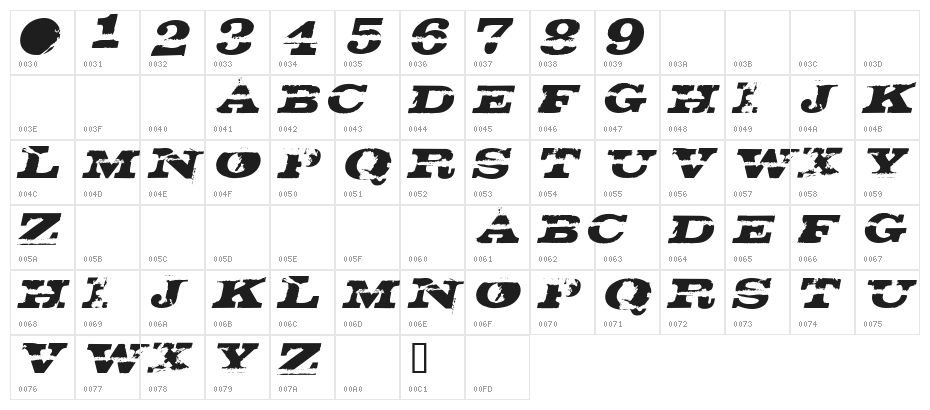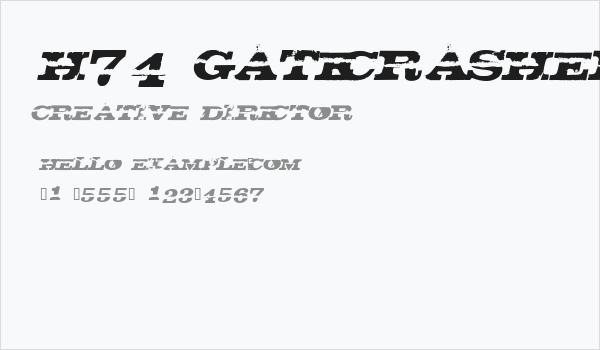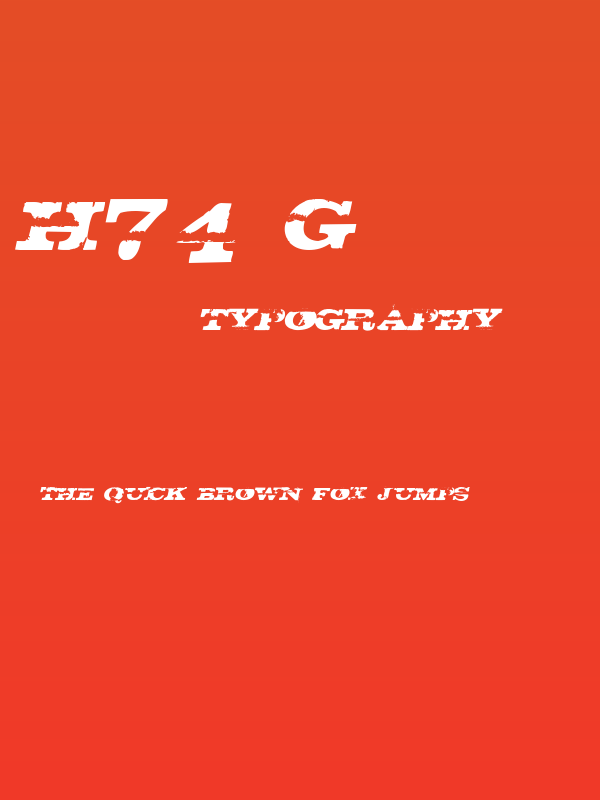
H74_Gatecrasher Italic Font
H74_Gatecrasher Italic Description
This font features a bold, distressed style with a grunge aesthetic. The characters are italicized, giving them a dynamic and energetic appearance. The rough edges and uneven texture create a sense of movement and urgency, making it ideal for designs that require a bold statement. The uppercase letters are prominent, with a slightly condensed width, while the numbers and special characters maintain the same rugged style. The font's unique texture and slanted design make it stand out, perfect for projects that need a touch of rebellion or edginess.
| Overall Style | Grunge, Edgy |
| Proposed Projects | Ideal for music album covers, event posters, urban-themed designs, and edgy branding projects. |